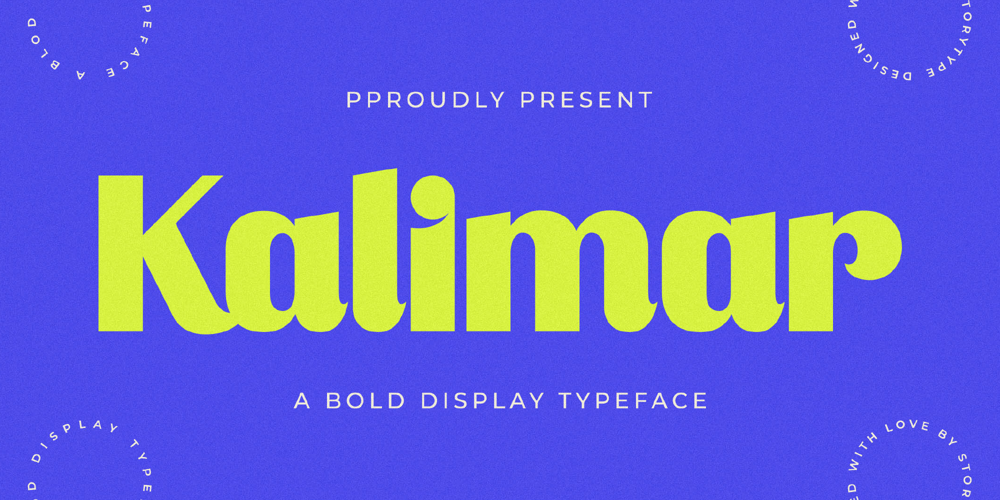
Kalimar
Kalimar font
Kalimar Font Family was designed by Heru Utama Putra and published by Letterena Studios. Kalimar contains 2 styles and family package options. Kalimar is a cool and modern serif display font. Add it confidently to your projects and you will love the results!